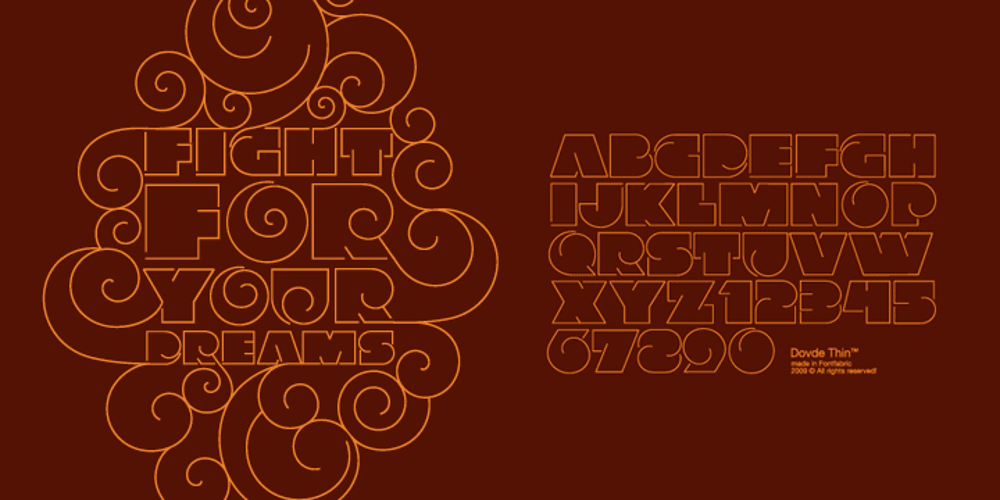
Dovde
Dovde font
Dovde Font Family was designed by Svetoslav Simov and published by Fontfabric. Dovde contains 2 styles and family package options. Dovde is a custom font which is applicable for any type of graphic design – web, print, motion graphics etc and perfect for t-shirts and logos.